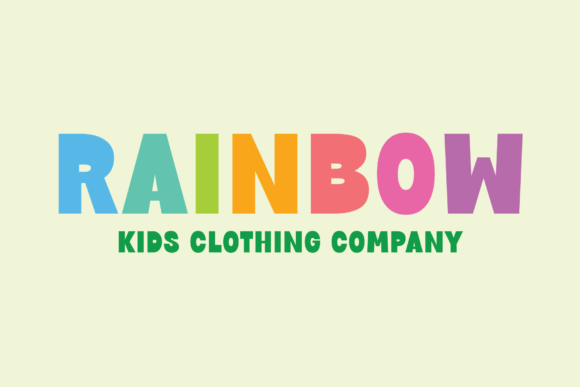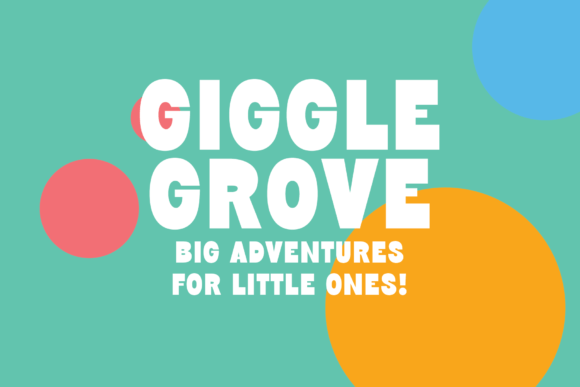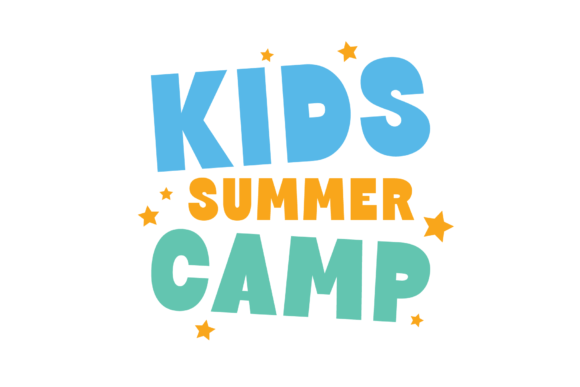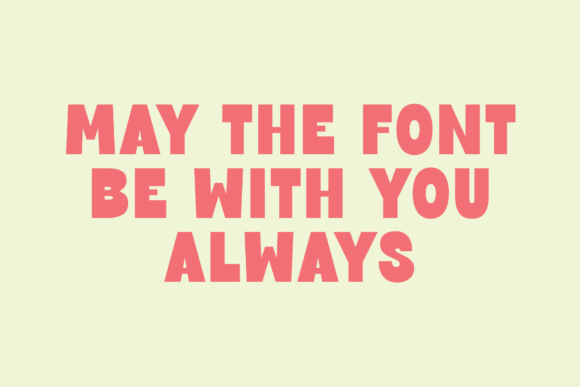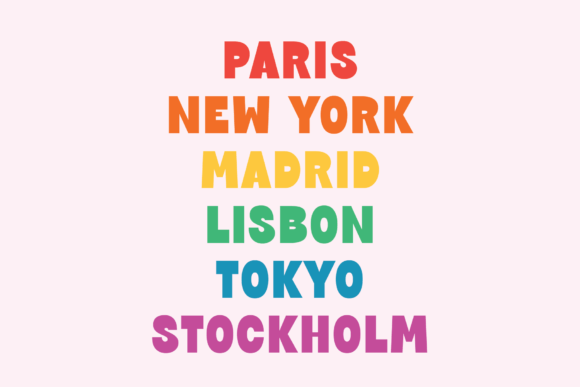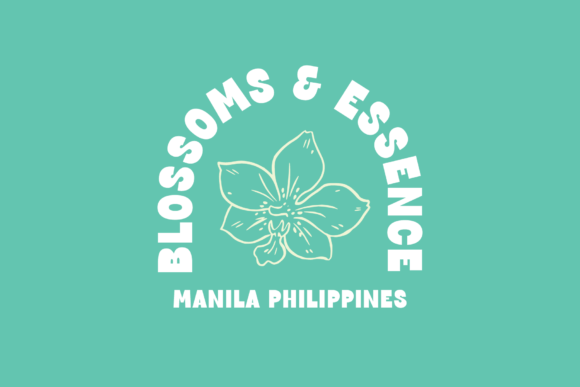
Introduction to Quirk Bounce Font
Remember that moment when you’re brainstorming ideas for your next creative project, and you need the perfect font to bring it all together? You’ve scrolled through countless options, but nothing seems quite right. That’s where the Quirk Bounce Font comes in – a game-changing design resource that adds a touch of whimsy and personality to your work.
This uniquely designed reverse contrast sans serif typeface is a breath of fresh air in the world of typography. Its bold and quirky character is sure to capture attention and leave a lasting impression. Whether you’re working on a branding project, designing a logo, or creating a social media graphic, the Quirk Bounce Font is the perfect choice. And the best part? It’s available for free download, making it an accessible and valuable addition to any designer’s toolkit.
With its transparent background and high-quality design, the Quirk Bounce Font is a versatile and reliable choice for any creative project. Its unique style works beautifully in both digital and print mediums, making it an essential resource for designers who want to take their work to the next level.
Key Features of Quirk Bounce Font
- Comes with a transparent background for seamless integration
- Includes 6 different font styles with varying levels of quirkiness
- Perfect for adding a touch of whimsy to designs, logos, and branding materials
Honest Review: Quirk Bounce Font
As a designer, I’m always on the lookout for high-quality design resources that can elevate my creative projects. Recently, I had the chance to try out the Quirk Bounce Font, and I must say, it’s a great addition to my design arsenal.
- ✨ Unique and playful characters that add a fun touch to my designs.
- ✨ High-quality font files that are perfect for printing and digital use.
- ✨ Transparent background option, which is a huge plus for designers who want to create seamless designs.
- ⚠️ Limited font styles and variations, which may not be ideal for designers who need a wide range of options.
- ⚠️ Not ideal for formal or corporate designs, as it may come across as too playful.
Overall, I’m impressed with the Quirk Bounce Font. It’s a great design resource for creative projects that require a fun and playful touch. While it may have its limitations, I think it’s a great addition to any designer’s toolkit.
Tips for Getting the Most Out of Quirk Bounce Font
To maximize the effectiveness of the Quirk Bounce Font, experiment with different font combinations, sizes, and styles. Use the font’s transparent background to create visually appealing designs and add depth to your creative projects.
The Quirk Bounce Font is ideal for various creative projects, including branding, marketing materials, social media graphics, and more. Its unique design and high-quality features make it a valuable addition to any designer’s toolkit.
Alternatives to Quirk Bounce Font
Comic Sans MS is a high-quality sans-serif font suitable for various design projects. It features a playful and approachable style, making it ideal for creative projects, such as children’s books, posters, and flyers. When to use: For informal and friendly designs. Compared to Quirk Bounce Font: Comic Sans MS has a more traditional and less quirky feel.
Great Vibes is a modern and elegant script font that offers a free download option. It features a transparent background, making it perfect for designs that require a clean and minimalist look. When to use: For high-end designs, such as wedding invitations, luxury branding, and creative packaging. Compared to Quirk Bounce Font: Great Vibes has a more sophisticated and refined feel.
Does the Quirk Bounce Font have a transparent background?
Yes, the Quirk Bounce Font comes with a transparent background, making it easy to integrate into your designs without any distractions. This feature is particularly useful when working with complex backgrounds or layered compositions.